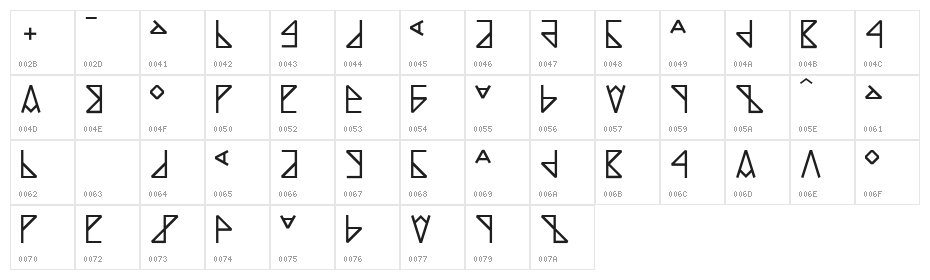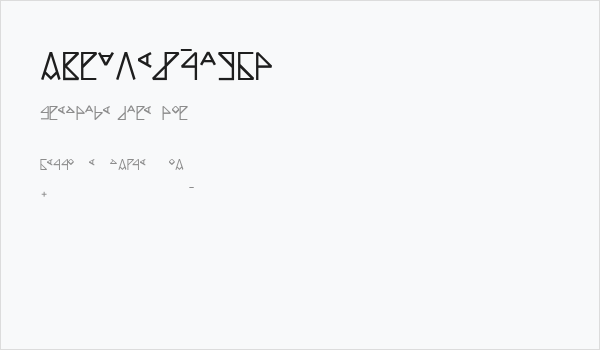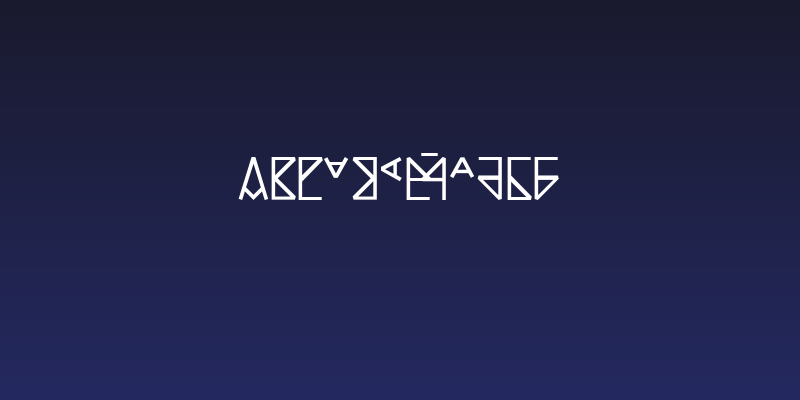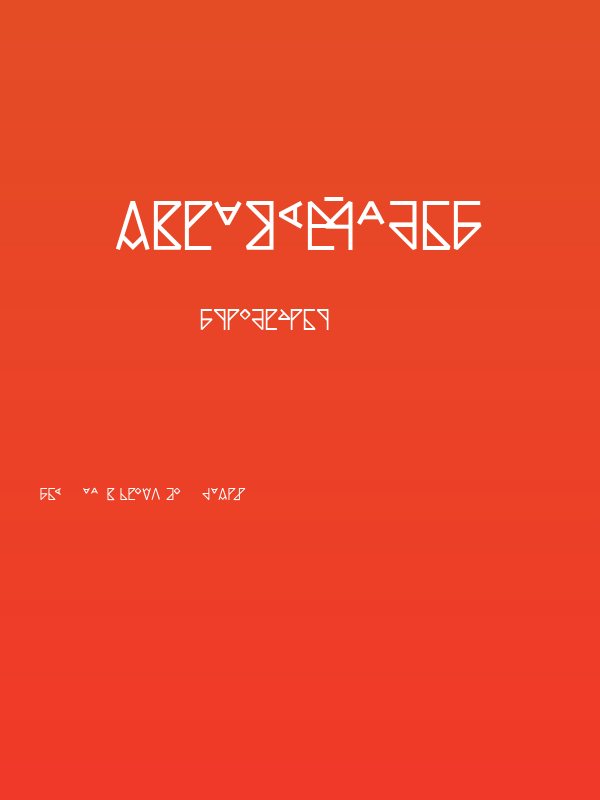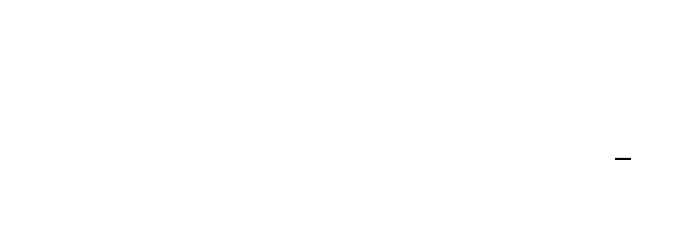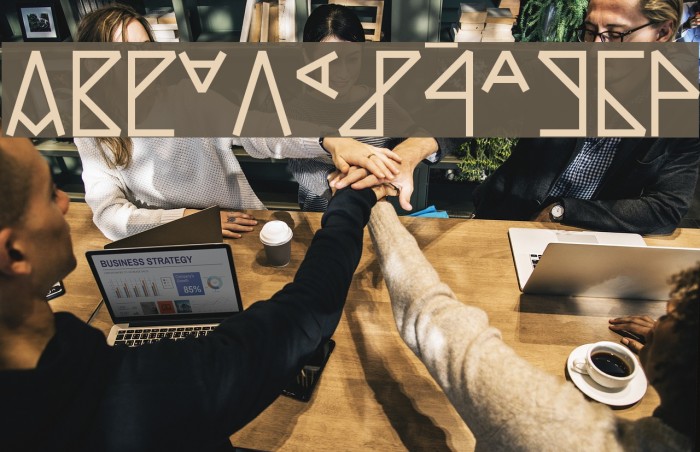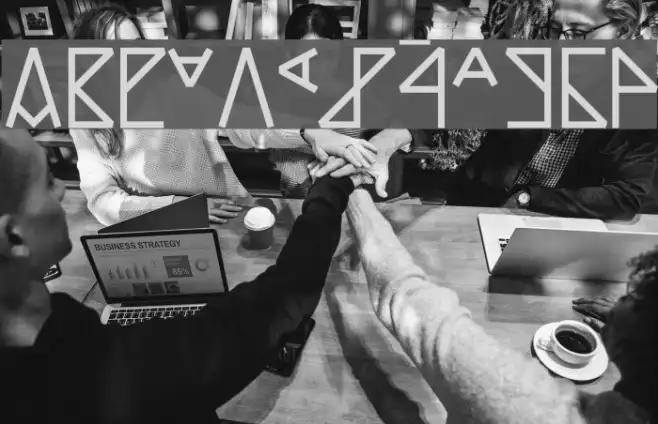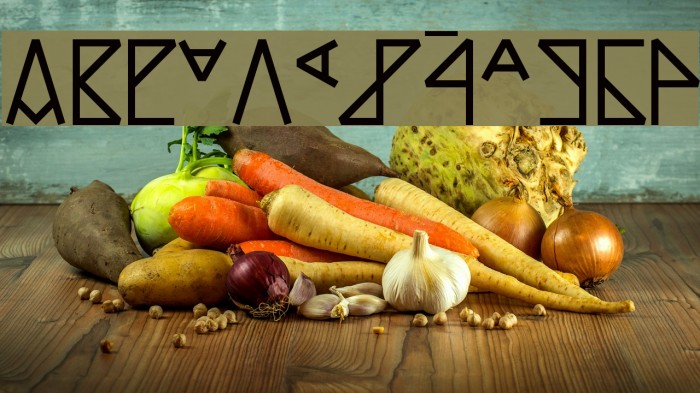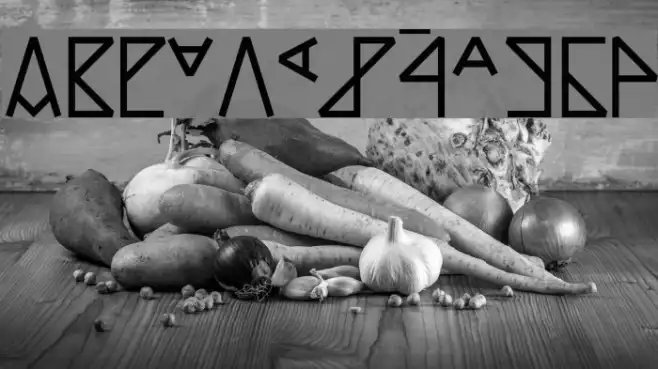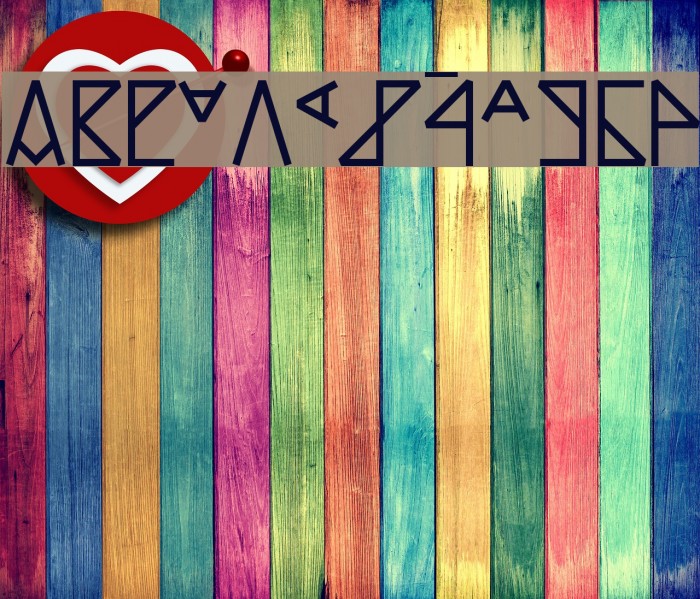
MKRunes-Light Font
MKRunes-Light Description
This font features a unique, angular design reminiscent of ancient runic alphabets. Each character is constructed with sharp, geometric lines and angles, creating a distinct and bold appearance. The style is highly decorative, with a focus on symmetry and balance. The characters are evenly spaced, maintaining a consistent visual flow across the text. This font is ideal for projects that require a historical or mystical aesthetic, offering a modern twist on traditional runic symbols.
| Use Case | Logos, Headlines, Themed Events |
| Proposed Projects | Perfect for fantasy-themed designs, game titles, book covers, or any project needing a mystical or historical touch. |